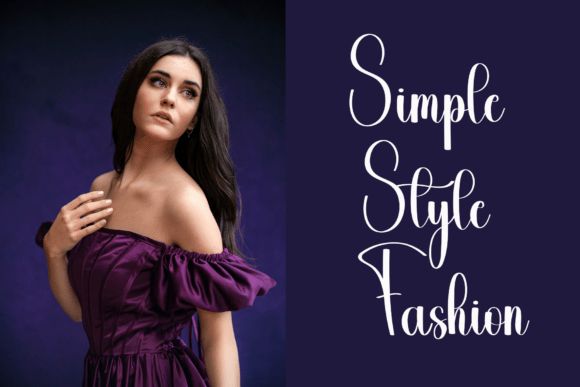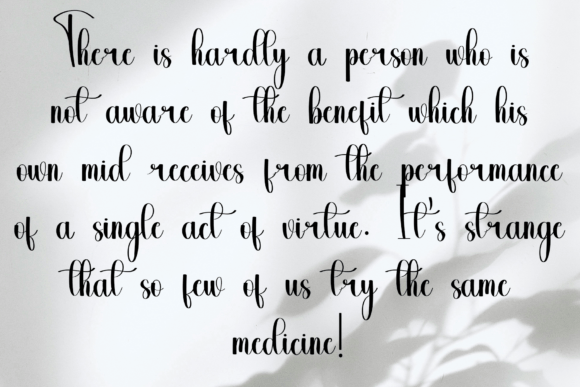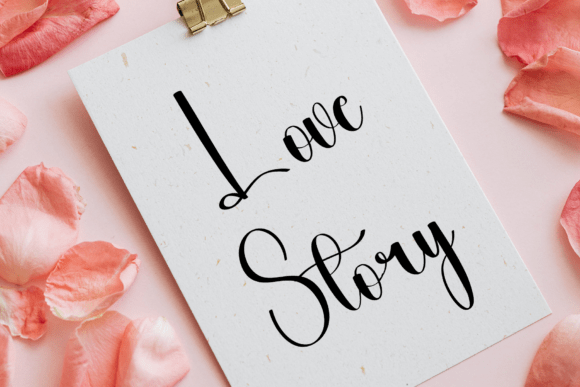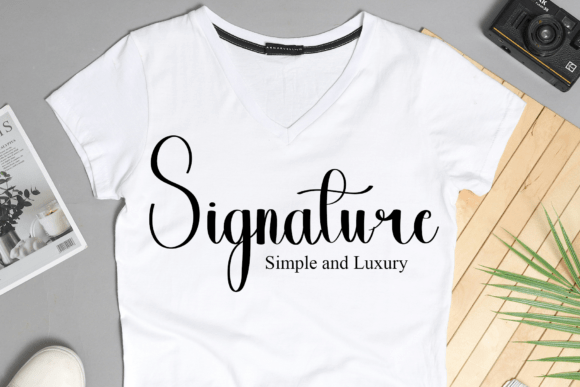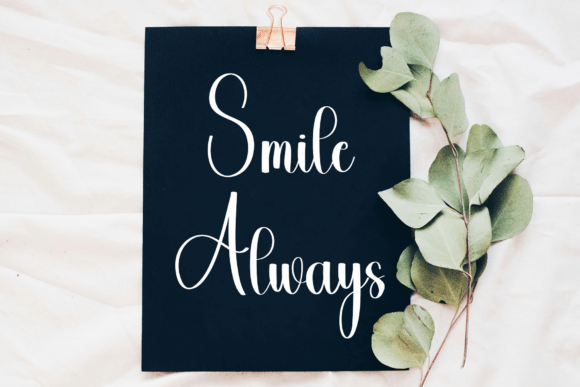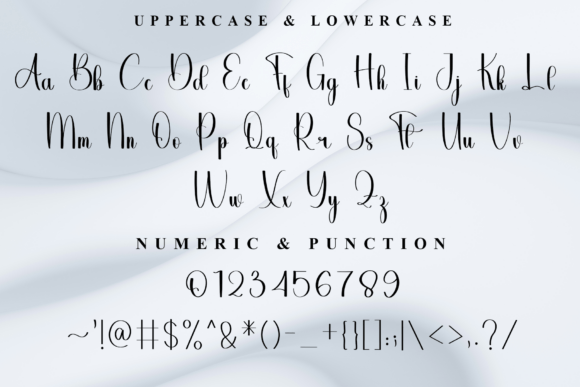
Introducing Beseball Font: The Ultimate Holiday Typeface
The holiday season is upon us, and what better way to get into the spirit than with a festive and merry typeface? Look no further than Beseball Font, a decorative and whimsical font that’s perfect for adding a touch of enchantment to your designs. In this article, we’ll dive into the world of Beseball Font, exploring its features, benefits, and uses, and show you why it’s a must-have for designers and crafters alike.
What is Beseball Font?
Beseball Font is a beautifully crafted typeface that’s designed to capture the magic of the holiday season. With its decorative elements and whimsical flair, this font is sure to bring a cheerful and nostalgic ambiance to your words. Whether you’re creating greeting cards, gift tags, or holiday-themed projects, Beseball Font is the perfect choice.
Key Features of Beseball Font
So, what makes Beseball Font so special? Here are just a few of its key features:
- Decorative elements: Beseball Font is packed with decorative elements that add a touch of festivity to your designs. From snowflakes to holly leaves, this font has everything you need to create stunning holiday-themed projects.
- Whimsical flair: Beseball Font has a playful and whimsical feel that’s perfect for capturing the spirit of the holiday season. Its unique and quirky design elements will add a touch of personality to your designs.
- PUA encoded: Beseball Font is PUA (Private Use Area) encoded, which means you can access all of the amazing glyphs and ligatures with ease. This makes it simple to use the font in your designs and ensures that you can get the most out of its features.
Uses for Beseball Font
Beseball Font is a versatile typeface that can be used in a variety of ways. Here are just a few ideas to get you started:
- Greeting cards: Create stunning holiday greeting cards with Beseball Font. Its decorative elements and whimsical flair make it perfect for adding a personal touch to your cards.
- Gift tags: Add a touch of festivity to your gift tags with Beseball Font. Its unique design elements will make your gifts stand out and add a personal touch.
- Holiday-themed projects: Beseball Font is perfect for any holiday-themed project, from invitations to party decorations. Its whimsical flair and decorative elements will add a touch of magic to your designs.
Benefits of Using Beseball Font
So, why should you choose Beseball Font for your holiday designs? Here are just a few benefits of using this amazing typeface:
- Easy to use: Beseball Font is simple to use, even if you’re new to designing. Its PUA encoding makes it easy to access all of its features, and its unique design elements will add a touch of personality to your designs.
- Versatile: Beseball Font can be used in a variety of ways, from greeting cards to holiday-themed projects. Its versatility makes it a great addition to any designer’s toolkit.
- High-quality design: Beseball Font is beautifully designed, with intricate details and decorative elements that will add a touch of festivity to your designs.
Tips for Getting the Most Out of Beseball Font
Here are a few tips for getting the most out of Beseball Font:
- Experiment with different sizes and colors: Beseball Font looks great in a variety of sizes and colors. Experiment with different combinations to find the one that works best for your design.
- Use it with other holiday-themed elements: Beseball Font is perfect for pairing with other holiday-themed elements, such as holly leaves, snowflakes, and festive patterns.
- Don’t be afraid to get creative: Beseball Font is a versatile typeface that can be used in a variety of ways. Don’t be afraid to get creative and try new things!